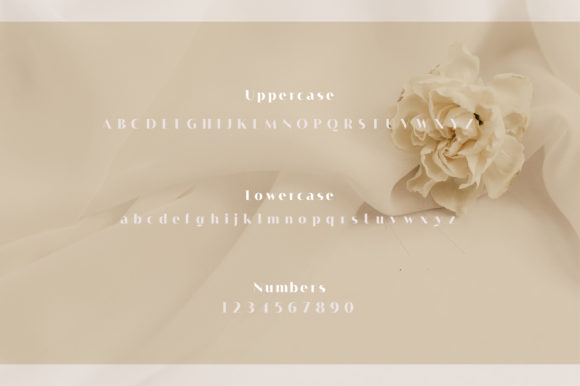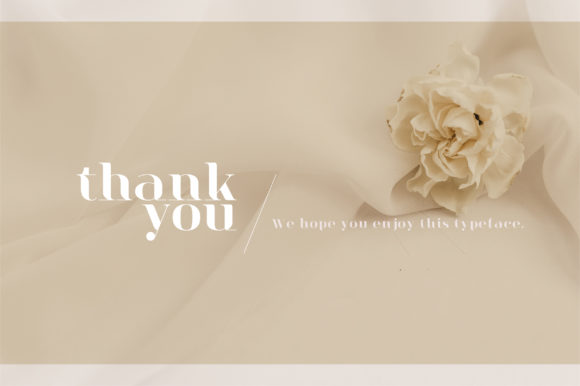
Introducing Alisson Font: Elevate Your Designs with Elegance and Sophistication
In the world of typography, few fonts manage to convey the essence of elegance and sophistication as effortlessly as Alisson Font. This classic serif font has captured the hearts of designers and crafters alike, and for good reason. Alisson Font is a versatile and beautiful typeface that can elevate any design project, from wedding invitations and thank you cards to quotes, greeting cards, logos, business cards, and beyond.
The Characteristics of Alisson Font
Alisson Font is characterized by its classic serif design, which exudes a sense of tradition and refinement. The font features elegant lines, subtle flourishes, and a sophisticated overall aesthetic that is sure to impress. Whether you’re looking to create a luxurious brand identity or a beautiful wedding invitation, Alisson Font provides the perfect foundation for your design.
Why Designers and Crafters Love Alisson Font
So, what makes Alisson Font so popular among designers and crafters? Here are just a few reasons why this font has become a go-to choice for creative professionals:
- Elegance and Sophistication: Alisson Font is the epitome of elegance and sophistication. Its classic design makes it perfect for projects that require a touch of refinement and luxury.
- Versatility: Alisson Font is incredibly versatile, making it suitable for a wide range of design projects, from wedding invitations and greeting cards to logos and business cards.
- Easy to Read: Despite its elegant design, Alisson Font is easy to read, even at smaller sizes. This makes it perfect for body text, captions, and other applications where legibility is key.
- Customizable: Alisson Font can be easily customized to suit your design needs. Whether you want to adjust the font size, style, or color, Alisson Font provides the flexibility you need to create a unique and stunning design.
Using Alisson Font in Your Designs
Alisson Font is incredibly easy to use, even for designers and crafters with limited typography experience. Here are a few tips for incorporating Alisson Font into your designs:
- Pair with Other Fonts: Alisson Font pairs beautifully with other fonts, including sans-serif fonts, script fonts, and other serif fonts. Experiment with different font combinations to create a unique and visually appealing design.
- Experiment with Colors: Alisson Font looks stunning in a variety of colors, from rich jewel tones to soft pastels. Don’t be afraid to experiment with different colors to find the perfect shade for your design.
- Play with Size and Style: Alisson Font can be used at a variety of sizes and styles, from large headings to small body text. Experiment with different sizes and styles to create visual interest and hierarchy in your design.
Project Ideas for Alisson Font
Alisson Font is suitable for a wide range of design projects, including:
- Wedding Invitations: Alisson Font is a popular choice for wedding invitations, and for good reason. Its elegant design makes it perfect for formal wedding stationery.
- Thank You Cards: Alisson Font is also great for thank you cards, providing a beautiful and sophisticated way to express your gratitude.
- Quotes and Posters: Alisson Font looks stunning when used for quotes and posters. Its elegant design makes it perfect for showcasing inspirational quotes and phrases.
- Greeting Cards: Alisson Font is a great choice for greeting cards, providing a beautiful and elegant way to celebrate special occasions.
- Logos and Branding: Alisson Font can also be used for logos and branding, providing a sophisticated and elegant foundation for your brand identity.
- Business Cards: Alisson Font is a popular choice for business cards, making it easy to create a professional and elegant business card design.
| Font Name | Alisson Font |
| Author | geengraphy |
In conclusion, Alisson Font is a beautiful and elegant serif font that is perfect for designers and crafters looking to elevate their designs. Its classic design, versatility, and ease of use make it a great choice for a wide range of design projects, from wedding invitations and greeting cards to logos and business cards. Whether you’re a seasoned designer or a crafting novice, Alisson Font provides the perfect foundation for creating stunning and sophisticated designs.